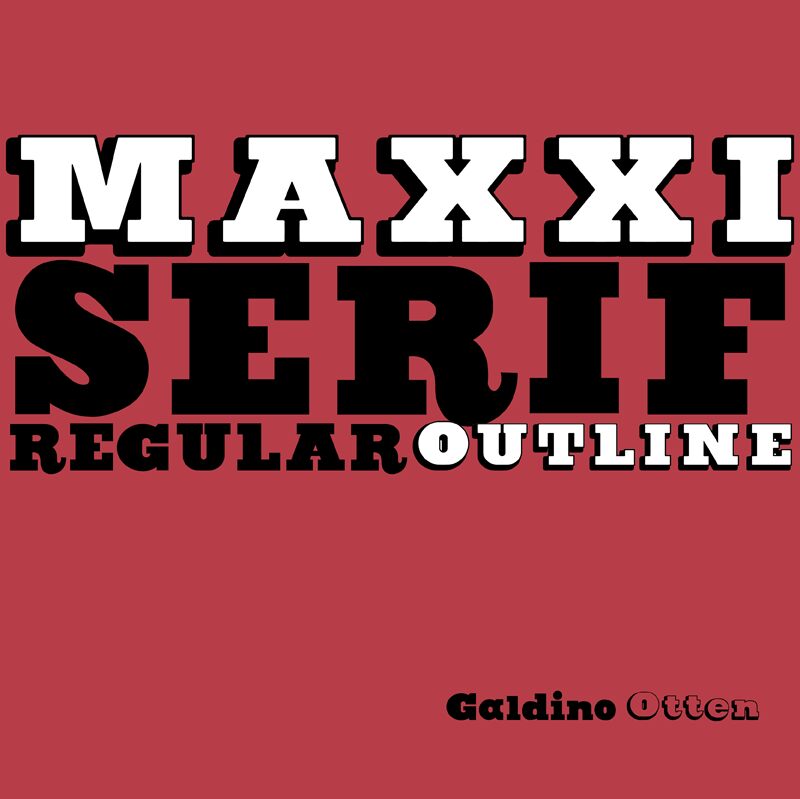
Maxxi Serif, designed by Galdino Otten Fonts, stands as a bold and captivating statement in the world of typography. Its serif style exudes a classic charm with a modern twist, perfect for those seeking to combine tradition with contemporary flair. The bold weight of Maxxi Serif lends it an assertive presence on the page, making it ideal for headlines, titles, and any application where you want your text to command attention.
With its extra-expanded width, Maxxi Serif offers a grandiose spread that fills space generously and creates an impactful visual rhythm. This characteristic not only enhances legibility but also provides a luxurious feel to the typeset content. The font's aesthetic appeal lies in its ability to marry the authoritative weight with the expansive width while maintaining elegance through its serif detailing.
Perfect for branding projects, editorial design, advertising campaigns, and more-Maxxi Serif is versatile enough to elevate any creative work. Whether gracing the cover of a bold magazine or setting the tone for an upscale branding initiative, this font's unique characteristics assure that your message is delivered with both style and substance.